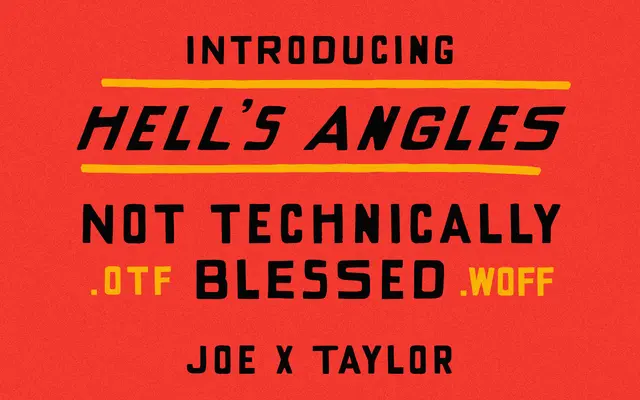
Hell's Angles
Hell's Angles specimen from Taylor Penton
A single-weight display face built from collaborative conflict, with contextual lowercase alternates that push its deliberately unruly character further.
Co-designed by Taylor Penton and a collaborator identified as Joe, the face wears its miscalculation as a feature, not a flaw. Contextual alternates are baked into the lowercase, shifting the texture of a word as you type. Coverage extends to Western European Latin including Icelandic and Welsh across 165 glyphs.
Described by its creators as ugly, miscalculated and odd, with contextual alternates in the lowercase and an intentionally chaotic, unrestrained design vocabulary that places it firmly in novelty display territory.